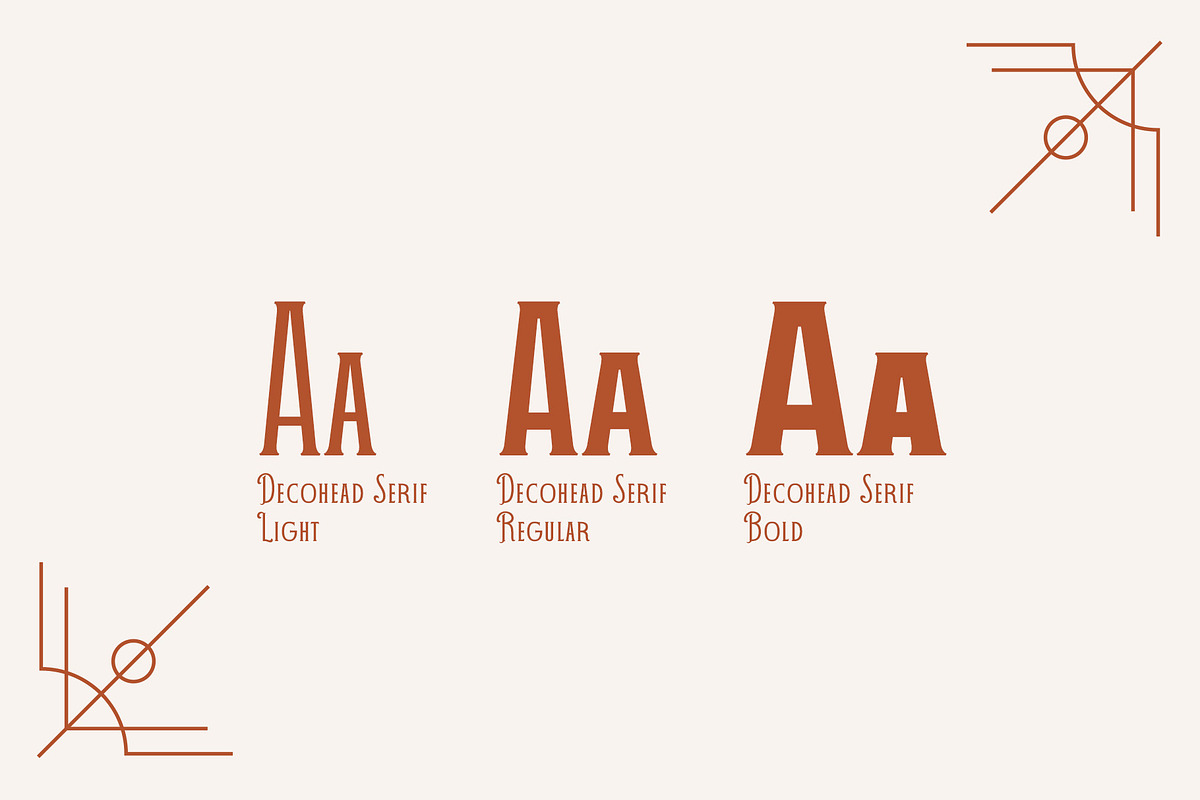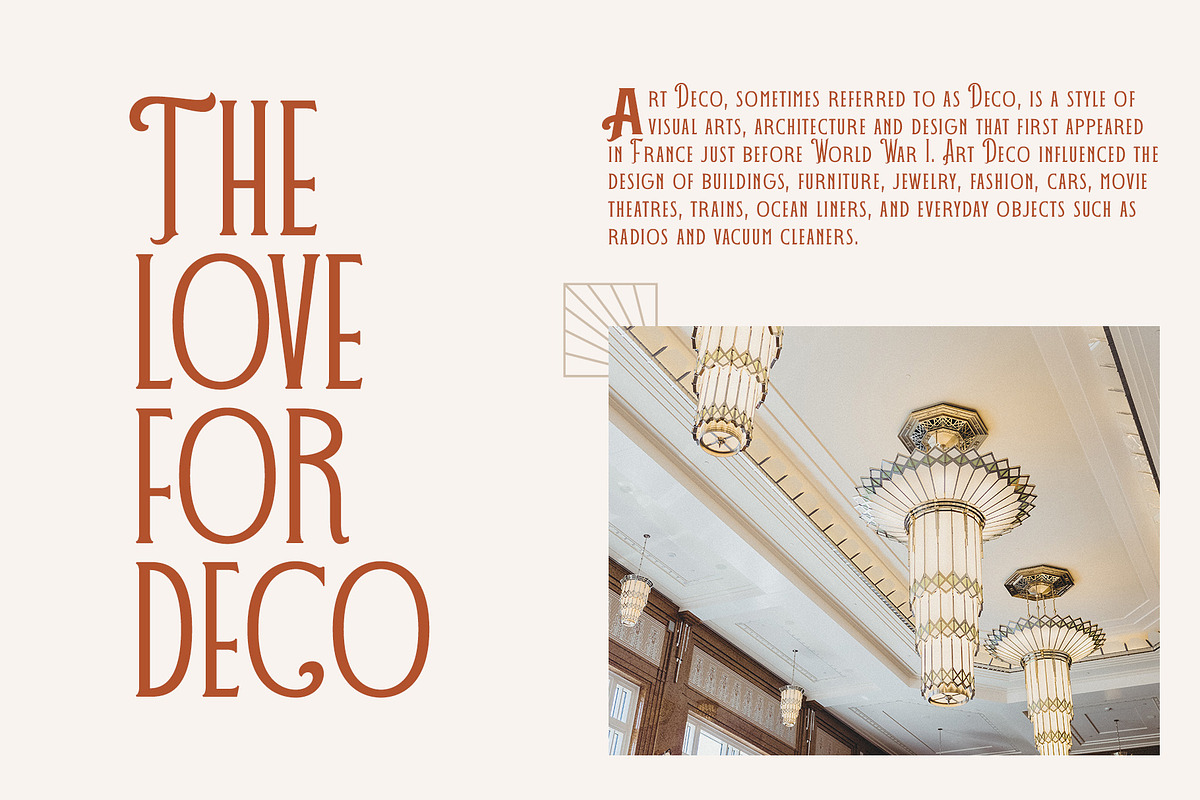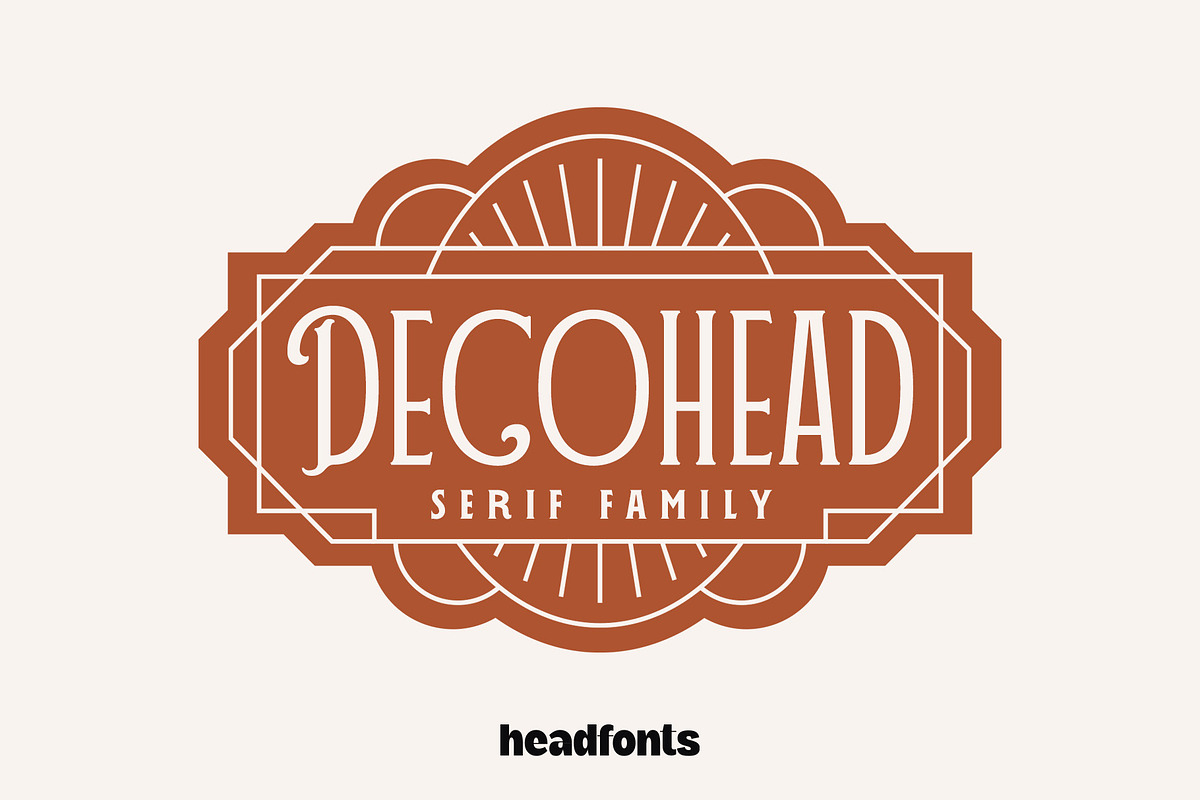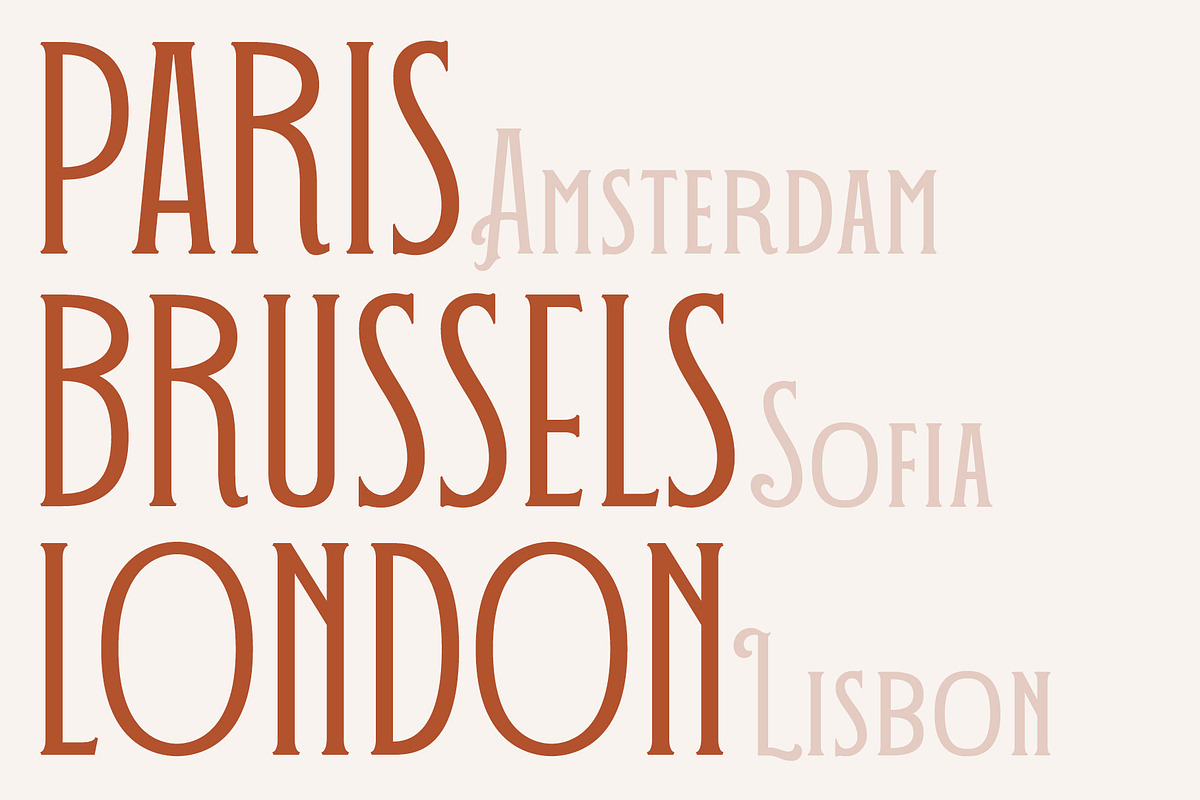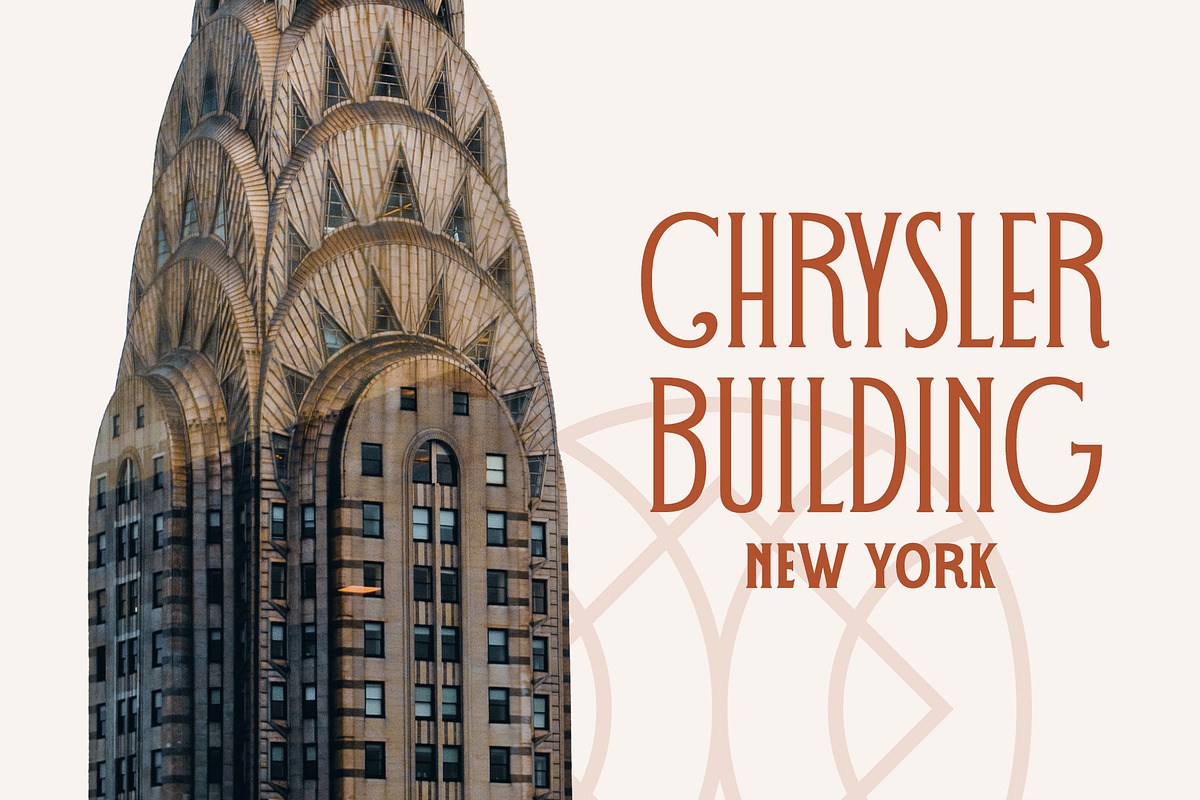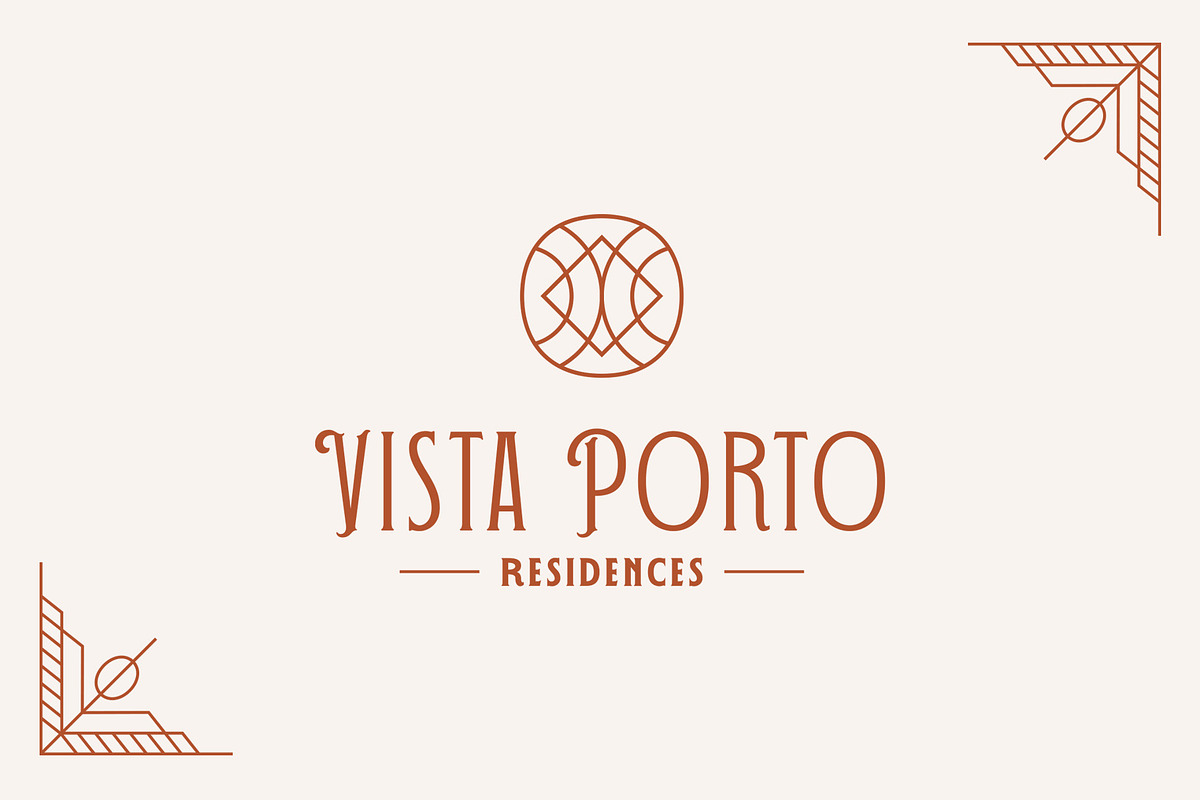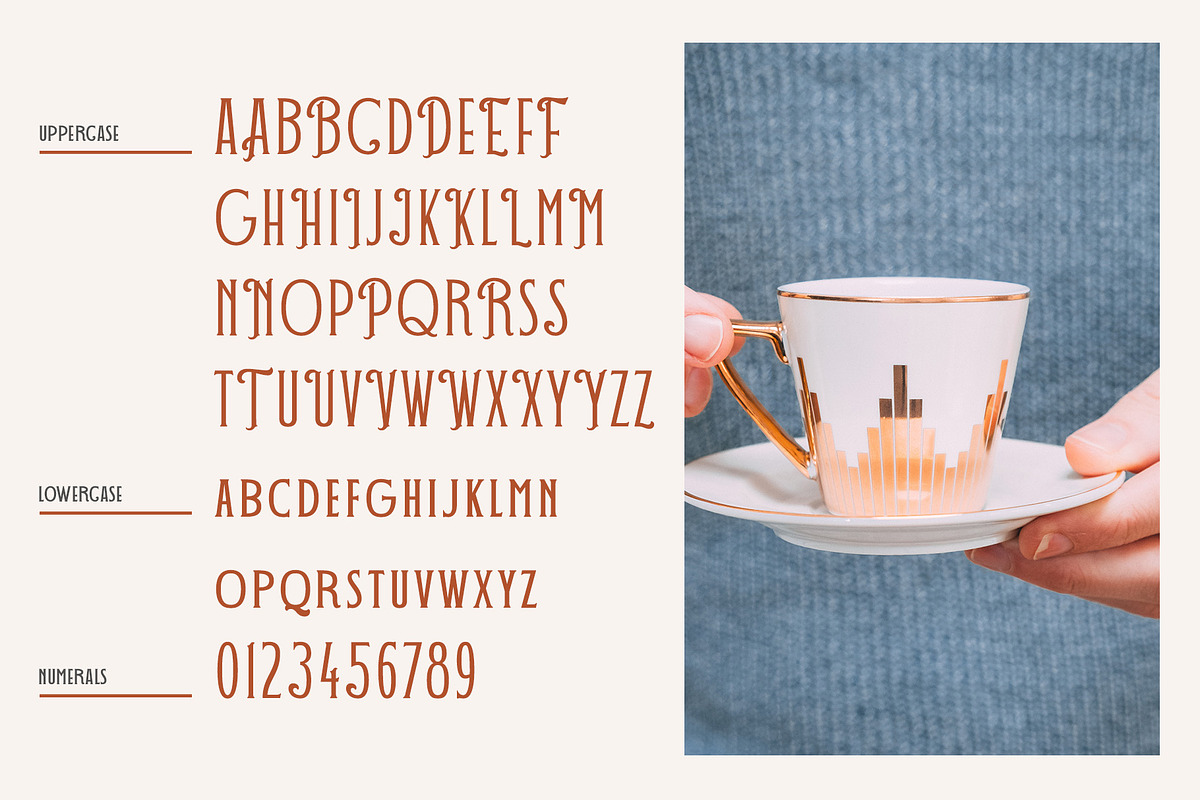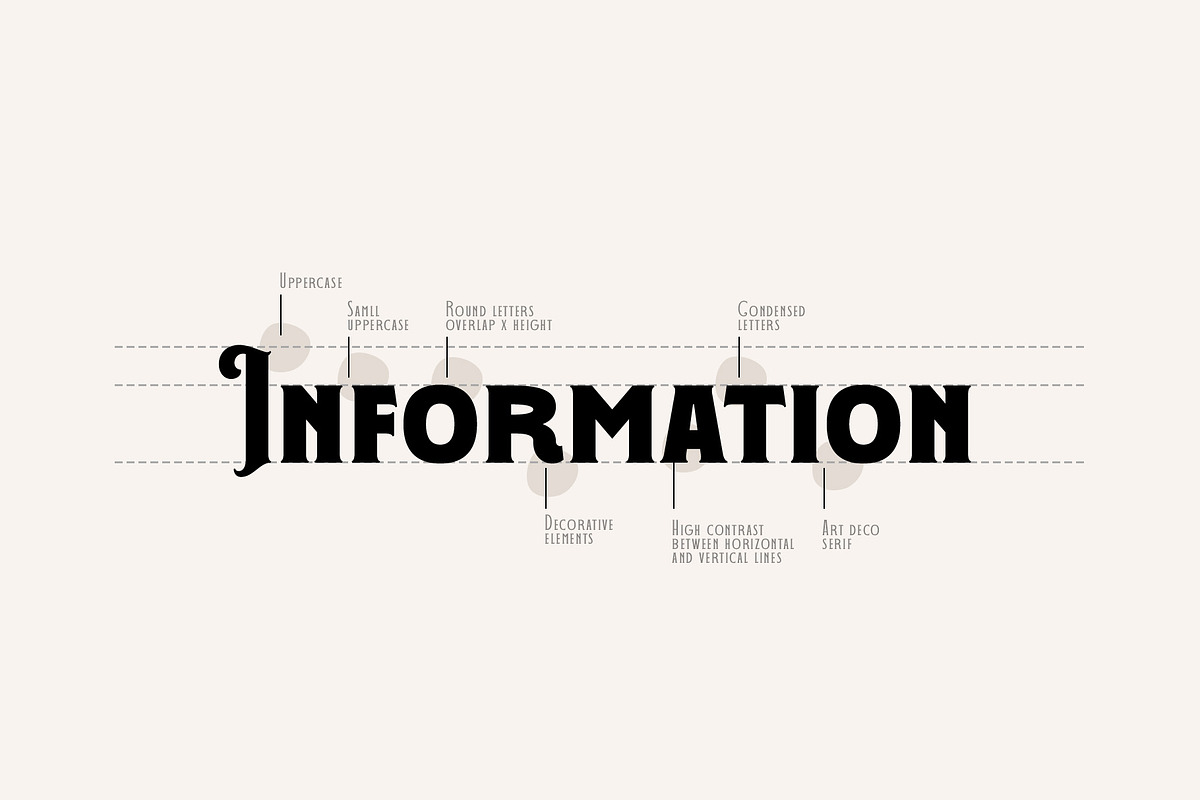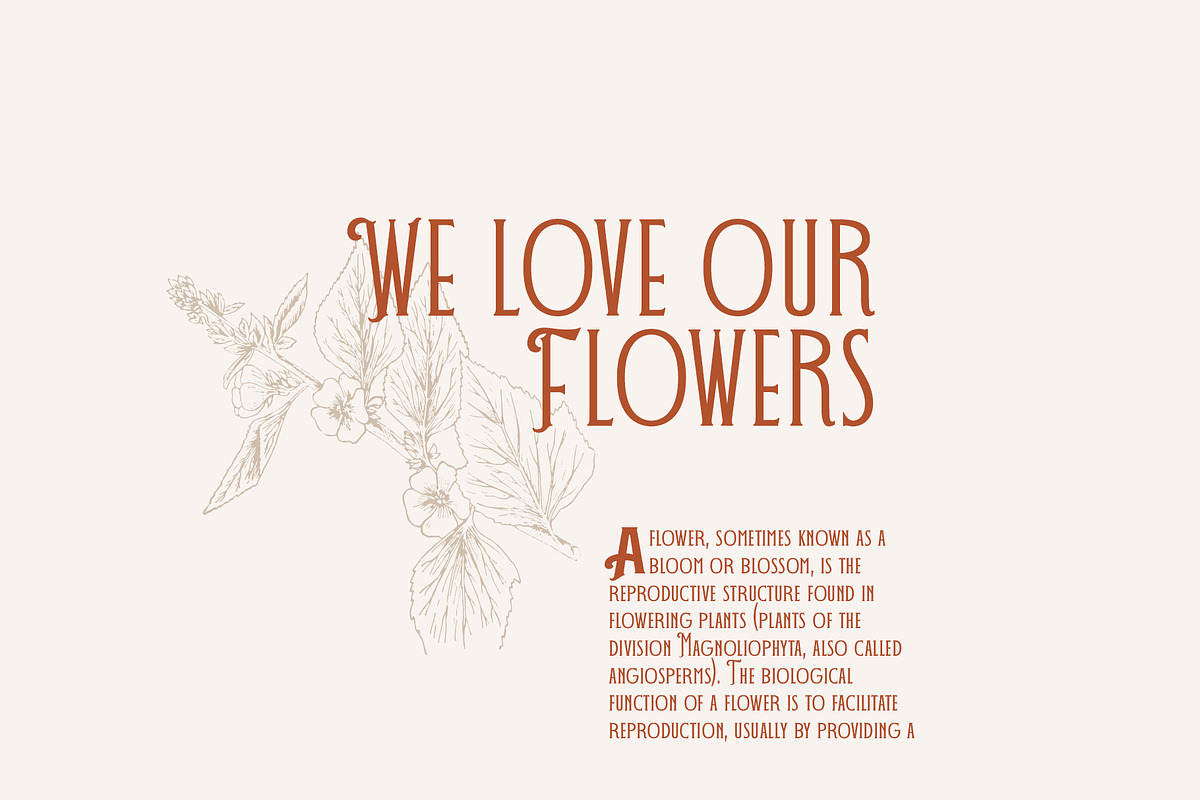
DECOHEAD Serif Elegant Art Deco Font
Introducing DECOHEAD Serif, an elegant typeface inspired by Art Deco design. This font brings a refined, sophisticated touch to any project with its unique and delicate details. Decohead combines a modern, clean look with subtle decorative accents, resulting in an exquisite overall style.
Available in three weights, it includes uppercase and small caps, along with standard Latin script support, numerals, and alternate characters. Perfect for projects that call for a glamorous, decorative flair, Decohead adds timeless elegance to your designs.